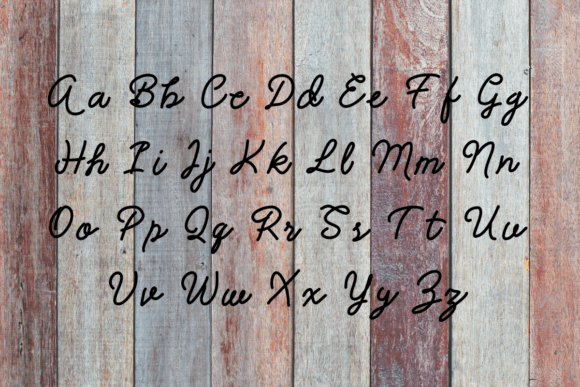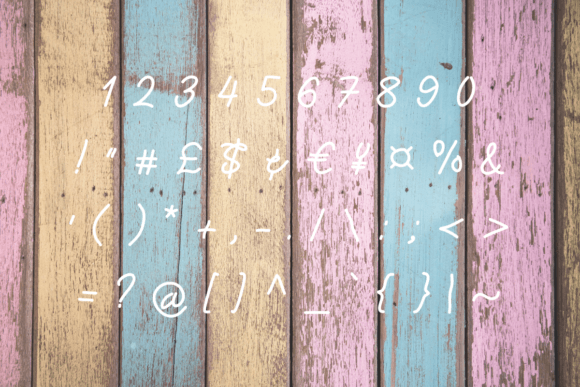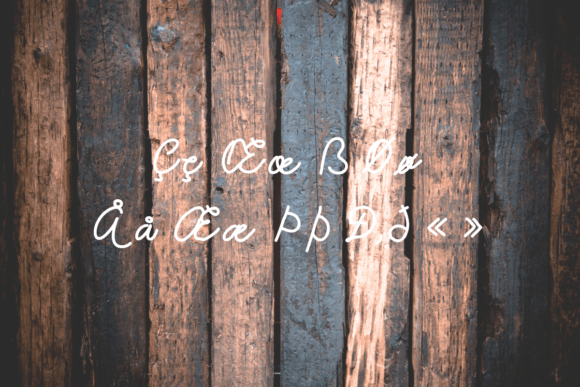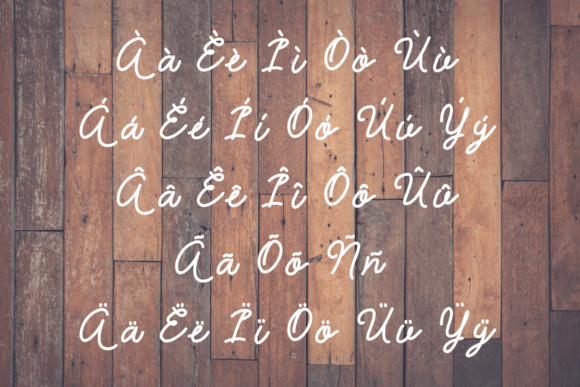
Introducing Efia Moplir Font: The Ultimate Handwritten Script for Creative Projects
Are you a designer, crafter, or DIY enthusiast looking for a font that can add a personal touch to your creative projects? Look no further than Efia Moplir, a cute and quirky handwritten font that exudes an incredibly friendly feel. With Efia Moplir, you can turn any creative idea into a true piece of art, whether you’re designing for Instagram, crafting handmade cards, or working on DIY projects.
What Makes Efia Moplir Font So Special?
Efia Moplir is more than just a font – it’s a way to add a dash of personality to your designs. Its handwritten script is carefully crafted to convey a sense of warmth, friendliness, and approachability. The font’s quirky and playful style makes it perfect for creative projects that require a personal touch, such as:
- Instagram graphics and stories
- Handmade cards and invitations
- DIY project labels and signs
Key Features of Efia Moplir Font
Efia Moplir font comes with a range of features that make it a versatile and practical choice for designers and crafters. Some of its key features include:
- Handwritten script: Efia Moplir’s handwritten script is carefully crafted to look natural and effortless, giving your designs a personal touch.
- Quirky and playful style: The font’s quirky and playful style makes it perfect for creative projects that require a dash of personality.
- Friendly feel: Efia Moplir’s friendly feel makes it perfect for designs that require a approachable and welcoming tone.
- Multilingual support: Efia Moplir font supports multiple languages, making it a great choice for designers and crafters who work with international clients or audiences.
How to Use Efia Moplir Font in Your Designs
Using Efia Moplir font in your designs is easy. Here are some tips to get you started:
- Pair it with bold fonts: Pair Efia Moplir with bold fonts to create a striking contrast and add visual interest to your designs.
- Experiment with colors: Efia Moplir font looks great in a range of colors, from bright and bold to pastel and subtle. Experiment with different colors to find the perfect fit for your design.
- Add illustrations and graphics: Efia Moplir font pairs perfectly with illustrations and graphics. Add some visual interest to your designs by incorporating simple illustrations or graphics.
- Use it for headings and titles: Efia Moplir font is perfect for headings and titles. Use it to add a personal touch to your designs and make them stand out.
Tips for Crafters and DIY Enthusiasts
If you’re a crafter or DIY enthusiast, Efia Moplir font can add a personal touch to your handmade projects. Here are some tips for using Efia Moplir font in your DIY projects:
- Use it for labels and signs: Efia Moplir font is perfect for labels and signs. Use it to add a personal touch to your DIY projects and make them more professional.
- Add it to your handmade cards: Efia Moplir font is perfect for handmade cards and invitations. Use it to add a personal touch and make your cards more special.
- Experiment with different materials: Efia Moplir font looks great on a range of materials, from paper and cardstock to wood and fabric. Experiment with different materials to find the perfect fit for your project.
Efia Moplir font is a versatile and practical choice for designers, crafters, and DIY enthusiasts. Its handwritten script, quirky and playful style, and friendly feel make it perfect for creative projects that require a personal touch. With Efia Moplir font, you can turn any creative idea into a true piece of art. So why wait? Download Efia Moplir font today and start adding a personal touch to your designs!